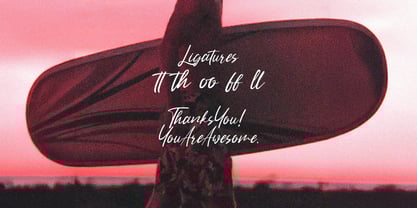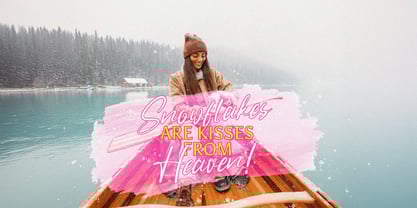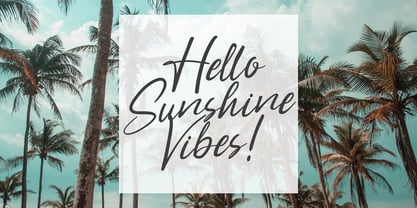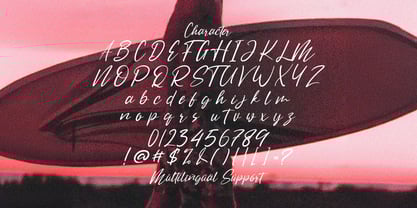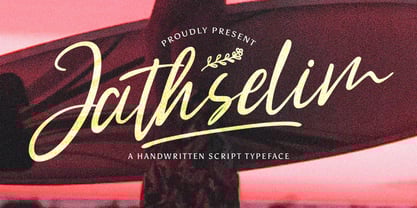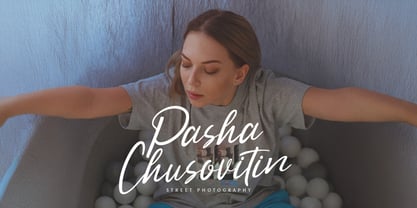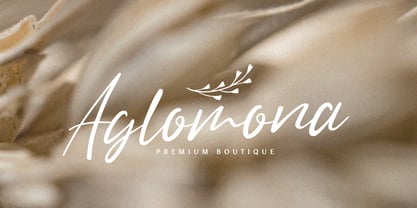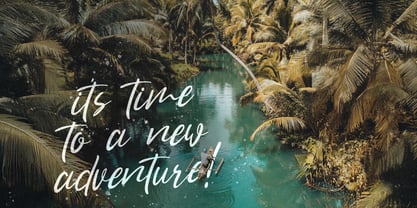
Die Schriftfamilie Jathselim wurde von Virgiawan Listanto entworfen und von Stringlabs Creative Studio veröffentlicht. Jathselim enthält 1 Stile.
Jathselim is a beautiful and expressive handwritten font that combines elegance with a natural, organic feel. Its carefully crafted, flowing letterforms give it a personal touch, making it ideal for projects that require a warm, authentic vibe.
Jathselim